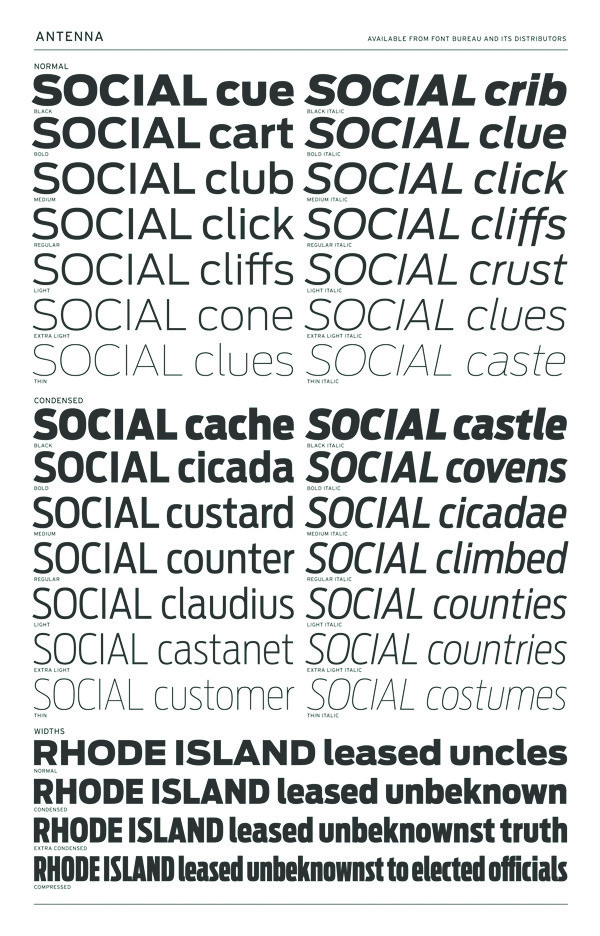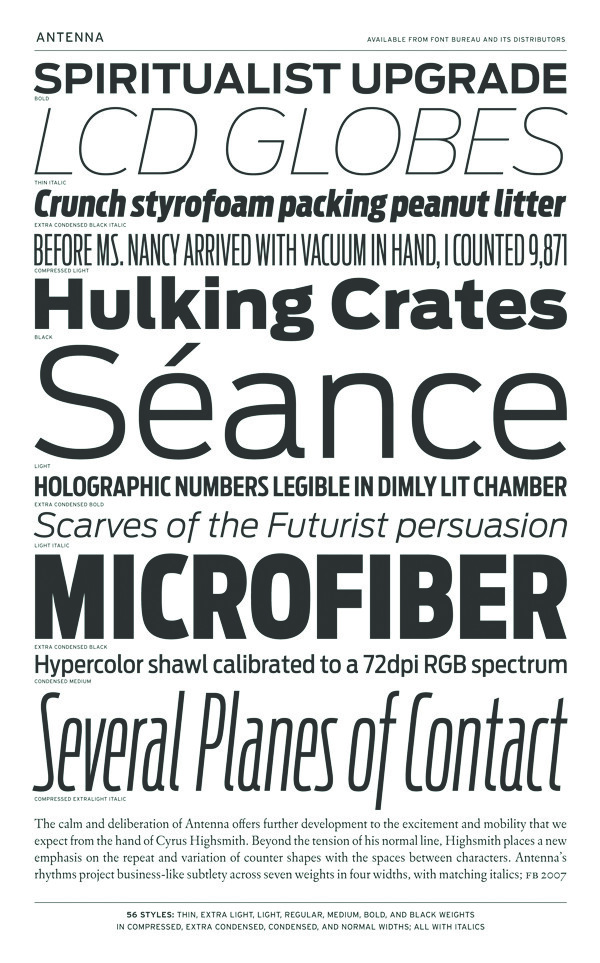
Antenna Font Family
Designer: Cyrus Highsmith
Antenna Font Family. The calm and deliberation of Antenna offers further development to the excitement and mobility that we have come to expect from the hand of Cyrus Highsmith. Beyond the tension of his normal line, Highsmith places a new emphasis on the repeat and variation of counter shapes with the spaces between characters. Antenna’s rhythms project business-like subtleties through seven weights in four widths, with matching italics. Among other uses, Antenna is recommended for Newspaper and Magazine use.